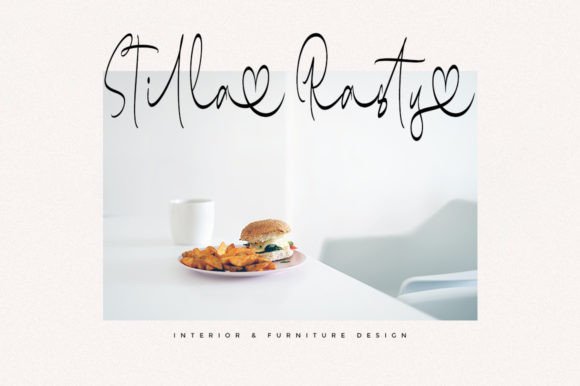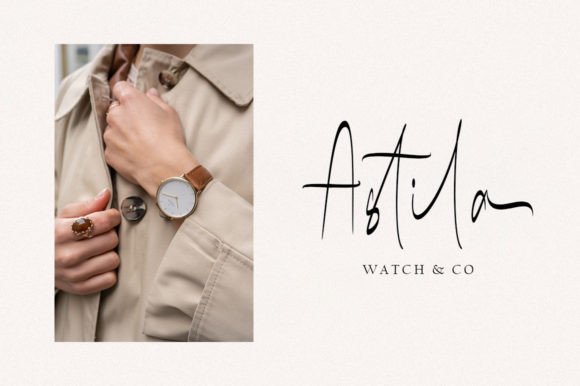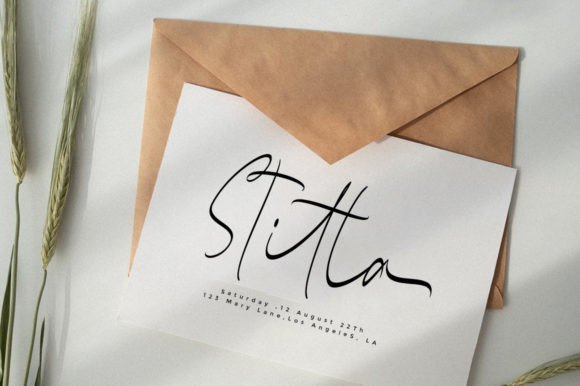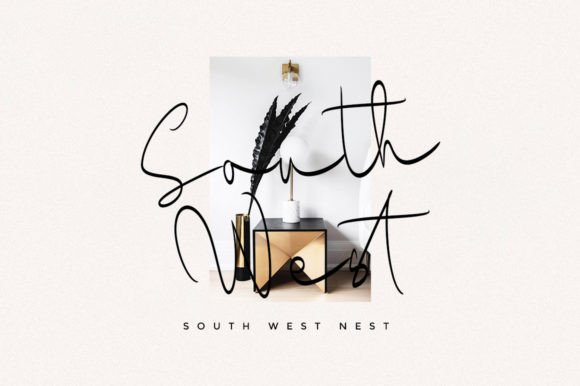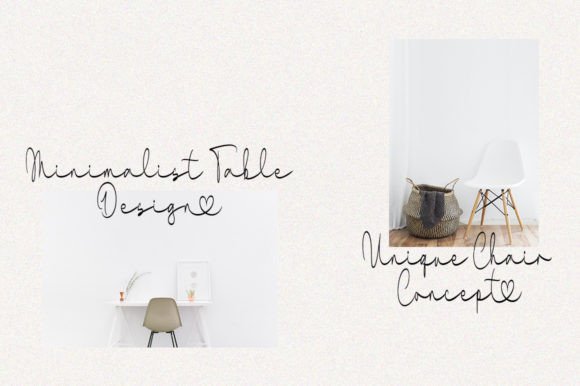
Add Natural Flow and Elegance with Gosfila Signature Font
Gosfila Signature Font is a natural and flowing handwritten typeface that brings elegance and charm to your creative projects. Its smooth, graceful strokes make it ideal for logos, invitations, stationery, and wedding designs. Whether you are working on social media posts, advertisements, or product packaging, Gosfila Signature Font adds a polished and personal touch.
Moreover, its balanced letterforms create a harmonious and sophisticated look that helps your designs stand out effortlessly.
Versatile Uses for Gosfila Signature Font
Gosfila SignatureFont fits beautifully in many design projects, including:
Brand logos and corporate identities
Wedding and event invitations
Stationery and thank-you cards
Social media graphics and marketing materials
Product packaging and labels
Photography watermarks and overlays
Special event materials and more
Thanks to its natural and flowing handwritten style, Gosfila SignatureFont adds warmth and sophistication to a wide range of creative works.
It also features clear spacing and optimized kerning, ensuring your text remains readable and visually attractive across various sizes and formats.
Why Designers Choose Gosfila Signature Font
Designers and creatives appreciate Gosfila SignatureFont for its blend of natural flow and elegance. It adds a personal and professional touch that enhances any project. Whether you are a professional or a hobbyist, Gosfila SignatureFont is a versatile and lovely choice for your typography needs.
Use Gosfila SignatureFont to bring grace and style to your next creative design.